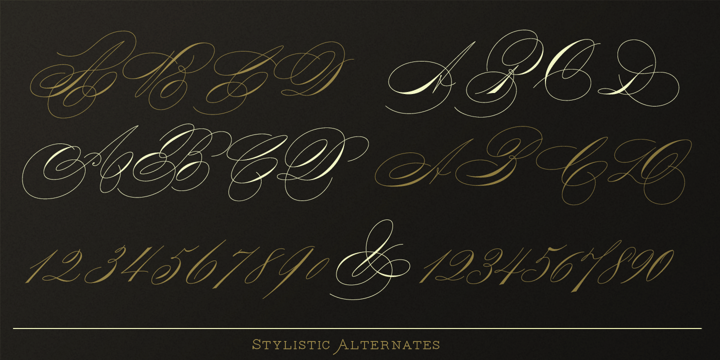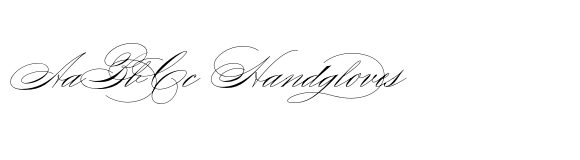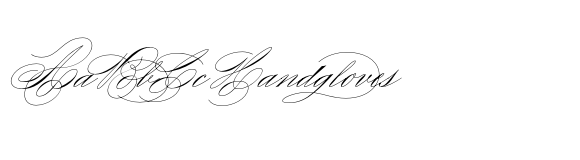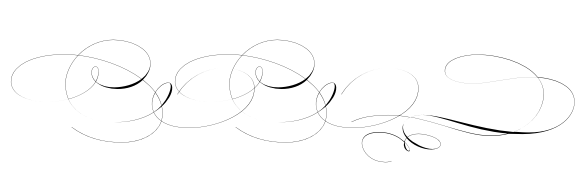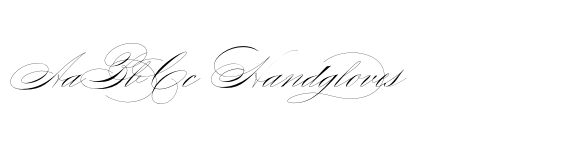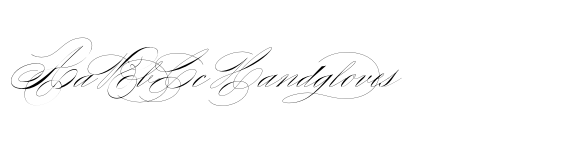
King Bloser
by Misprinted Type
The King Bloser Font Family was designed by Eduardo Recife and published by Misprinted Type. King Bloser contains 10 styles and family package options.
King Bloser Is a calligraphic font family inspired by Masters of Penmanship. The name King Bloser is a homage to penman E.W. Bloser from the 18th century; While the typeface has nothing from Bloser’s work, he was one of the first penman I got to know and his work made me fall in love with the art of Penmanship. This typeface has strong italic characters, beautiful swashes, several Stylistic Alternates, Contextual Alternates, Ligatures and a broad variety of Lowercase Endings, as well as Lowercase Initials. (There is a PDF manual under the Gallery tab, explaining how to use them). Also, King Bloser comes with King Bloser X which is full of ornamental swashes that can make your designs custom and unique. If that was not all, King Bloser comes with a bonus typeface: Bloser Serif which looks lovely when combined with the Script font.